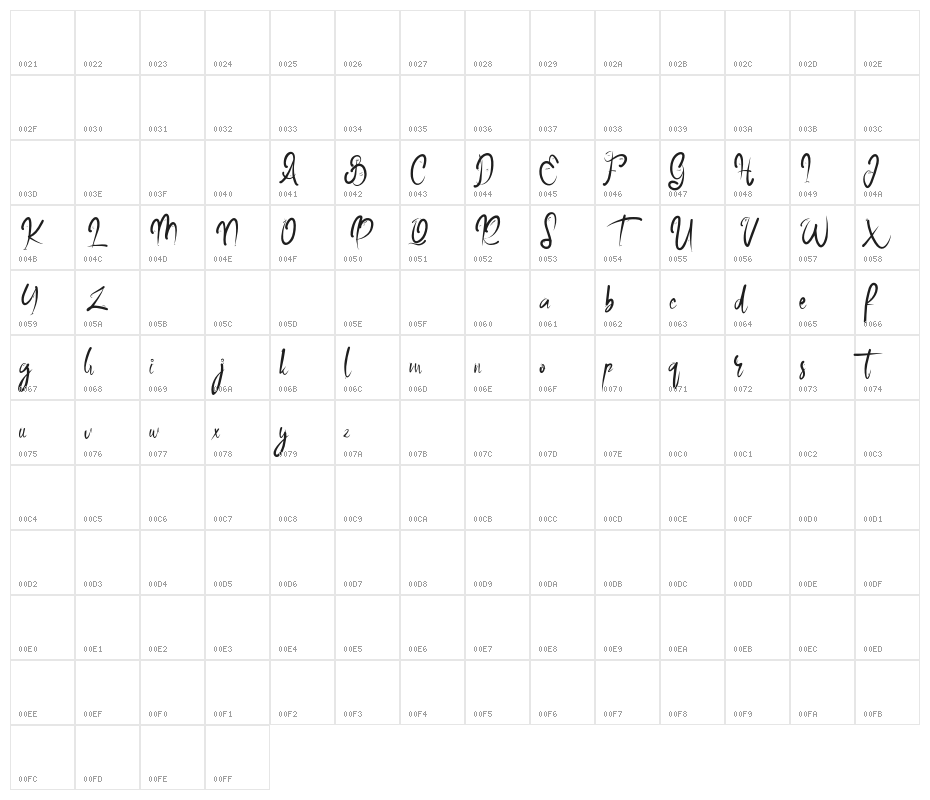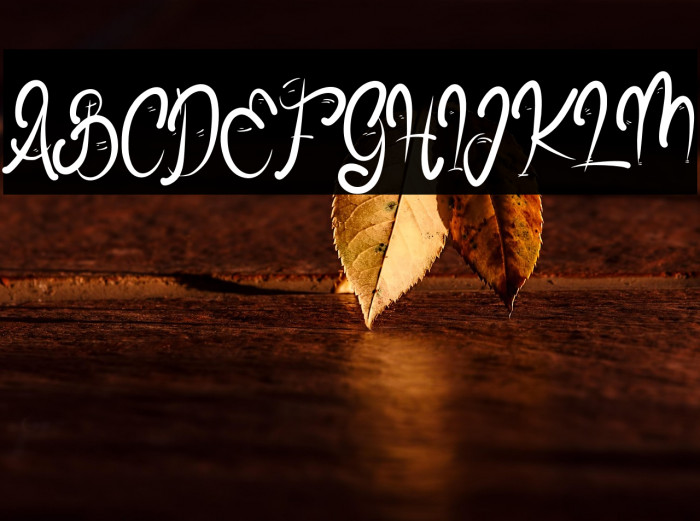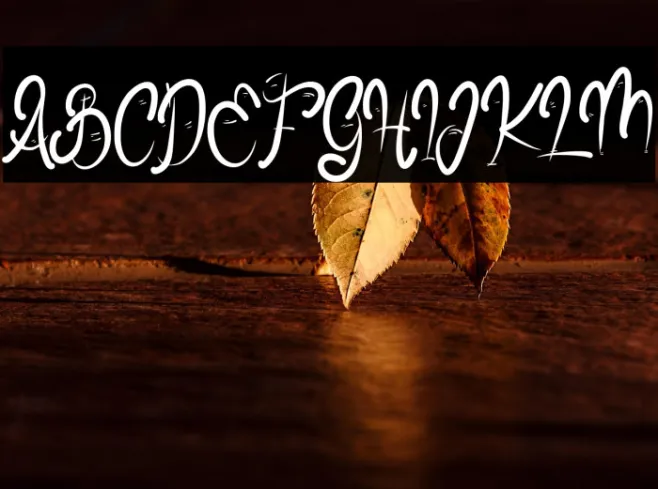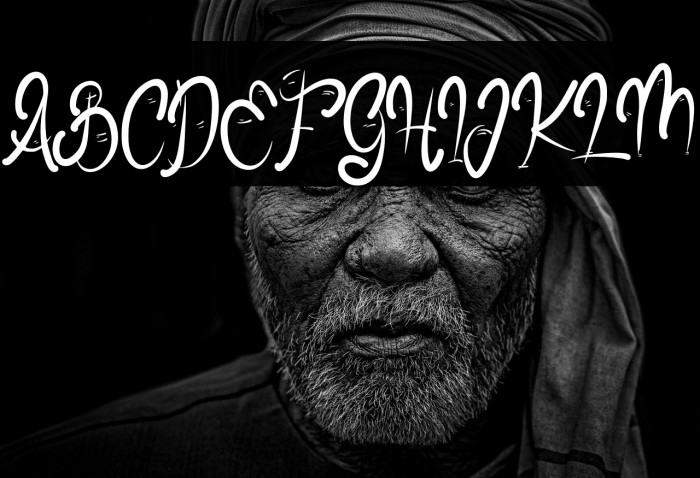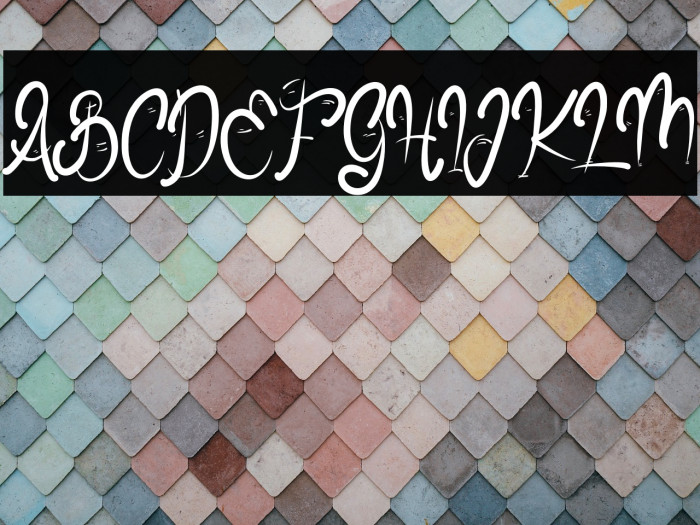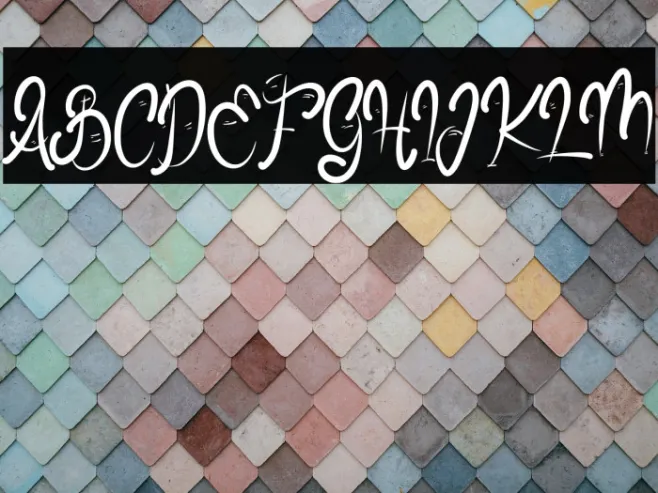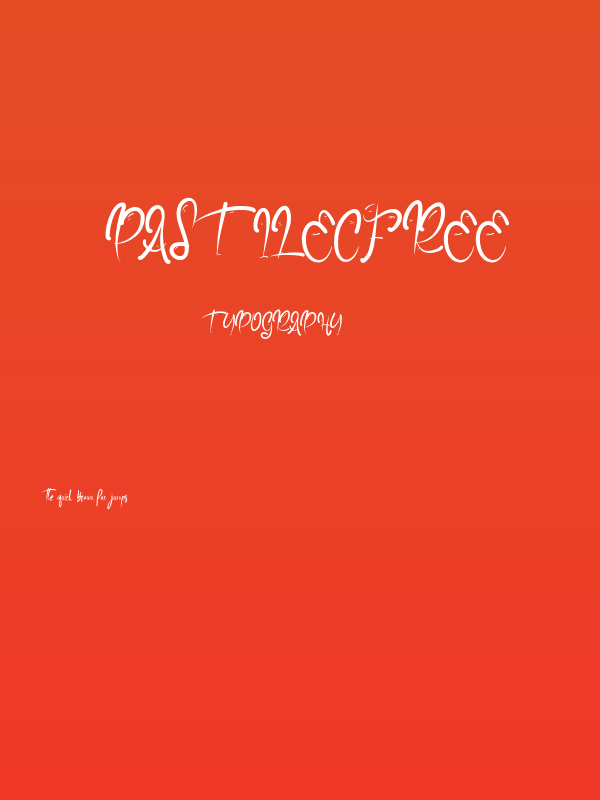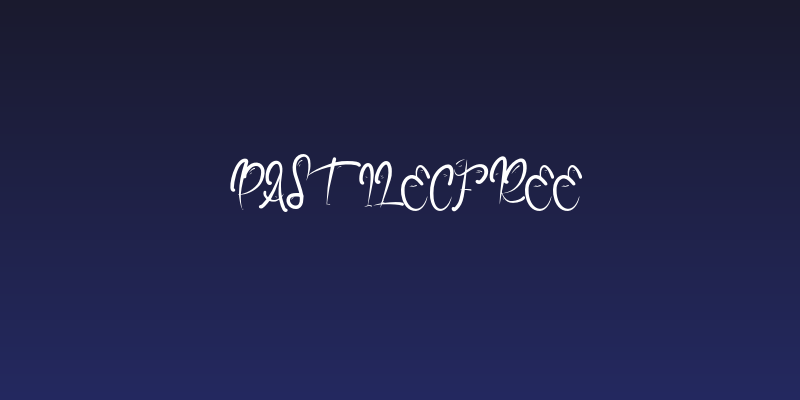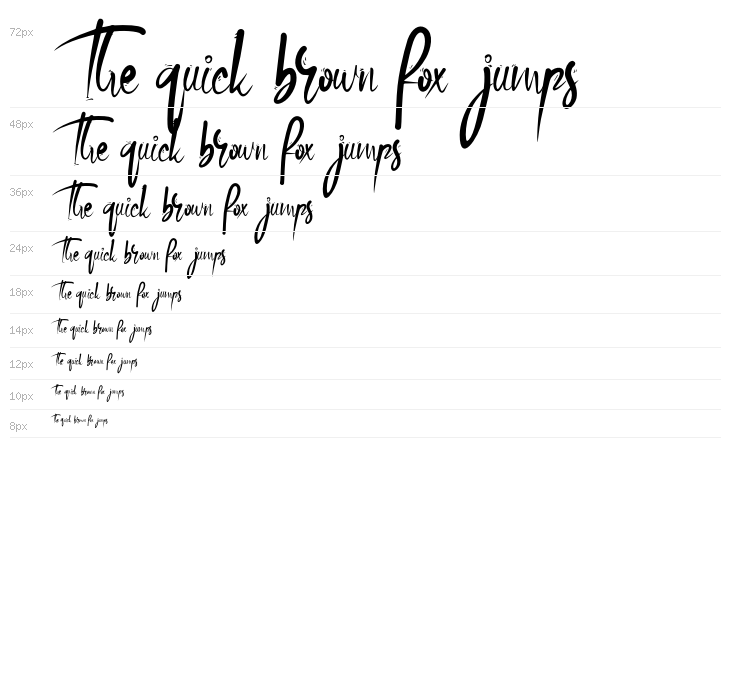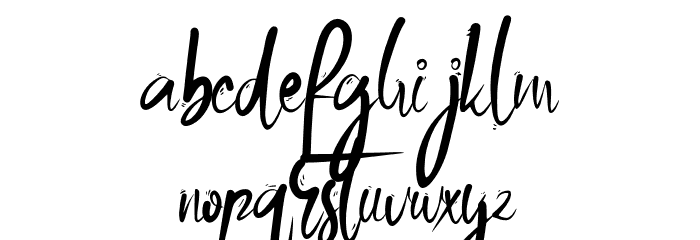
PastilecFREE Font
PastilecFREE Description
This font features an elegant and artistic script style, characterized by its fluid and dynamic strokes. The uppercase letters are bold and expressive, with flourishes that add a touch of sophistication. The lowercase letters maintain a consistent flow, enhancing readability while preserving the decorative nature. The numbers and special characters are designed to complement the overall style, making them suitable for creative and artistic projects. The font's unique charm lies in its ability to convey a sense of elegance and creativity, making it ideal for invitations, branding, and other design projects that require a personal touch.